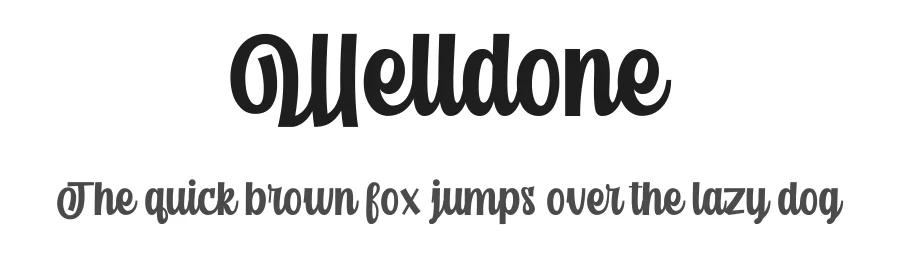
About Laguna Vintage Script Font
Introducing Laguna Vintage Font Collection. Inspired from American motor inn signs and vintage restaurant signs in 50s-70s. Laguna comes with open type features such stylistic alternates, stylistic sets, contextual alternates & ligatures. Also available in variable font format. To perfecting your design Laguna Font Collection also available with graphic extras :)
Laguna Font Collection is best uses for headings, Logo type, quotes, apparel design, invitations, flyer, poster, greeting cards, product packaging, book cover, printed quotes, cover album, movie, etc
Laguna Vintage Script Font is a script font that shines as a display or heading face. Pair it with a clean sans-serif or serif font for body text β the contrast creates a clear hierarchy while the two styles stay balanced and easy to read.
Laguna Vintage Script Font